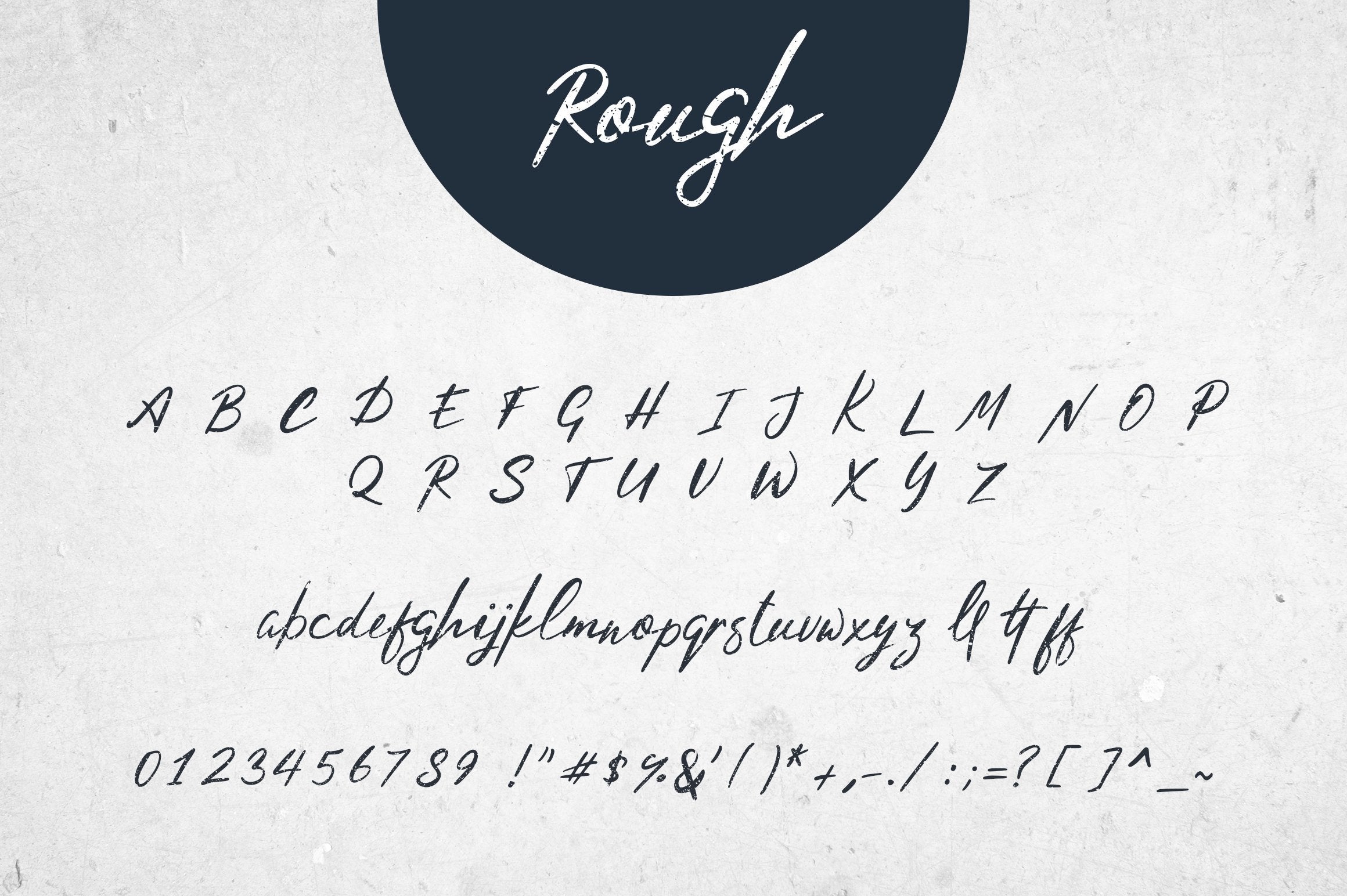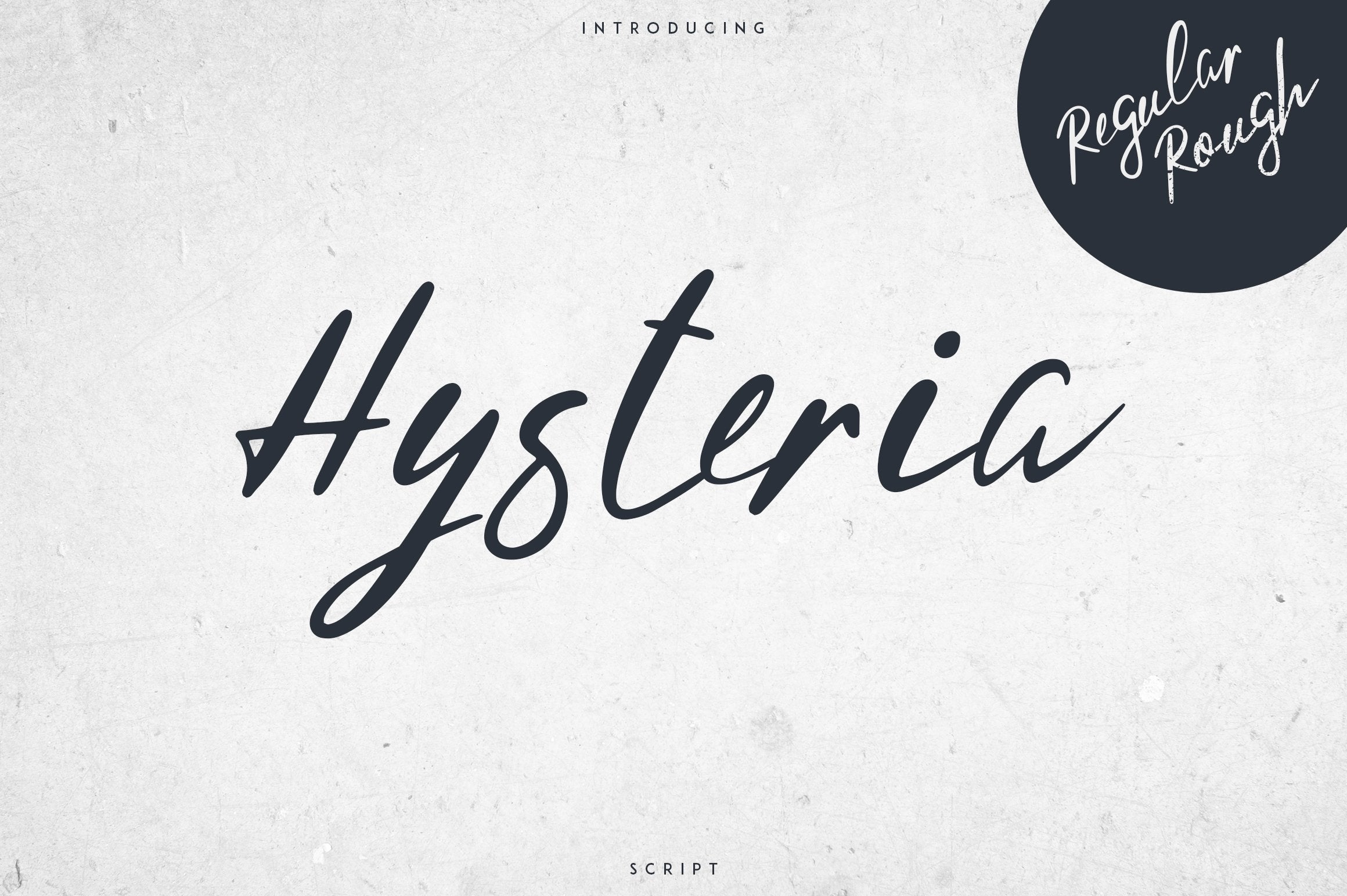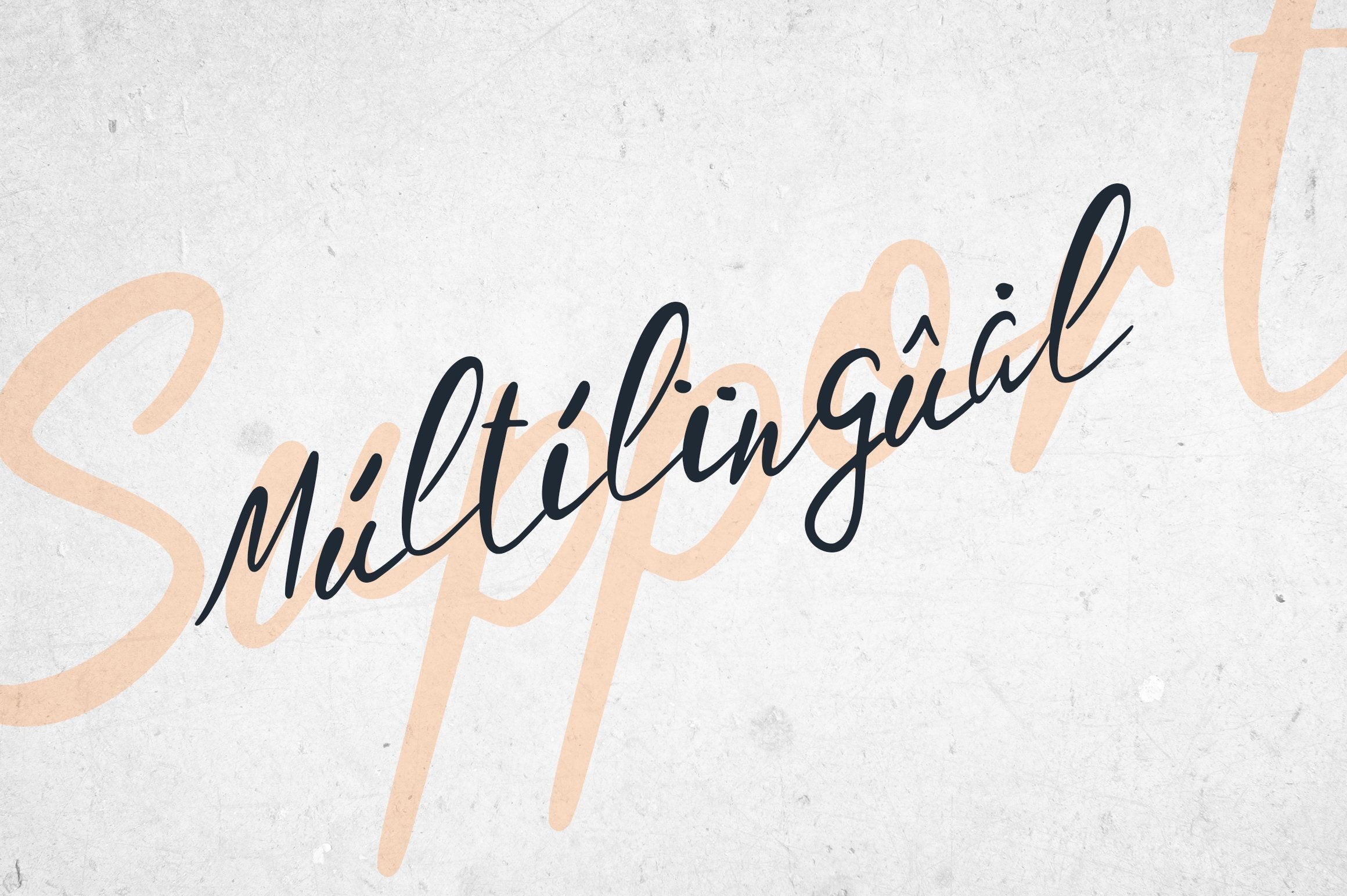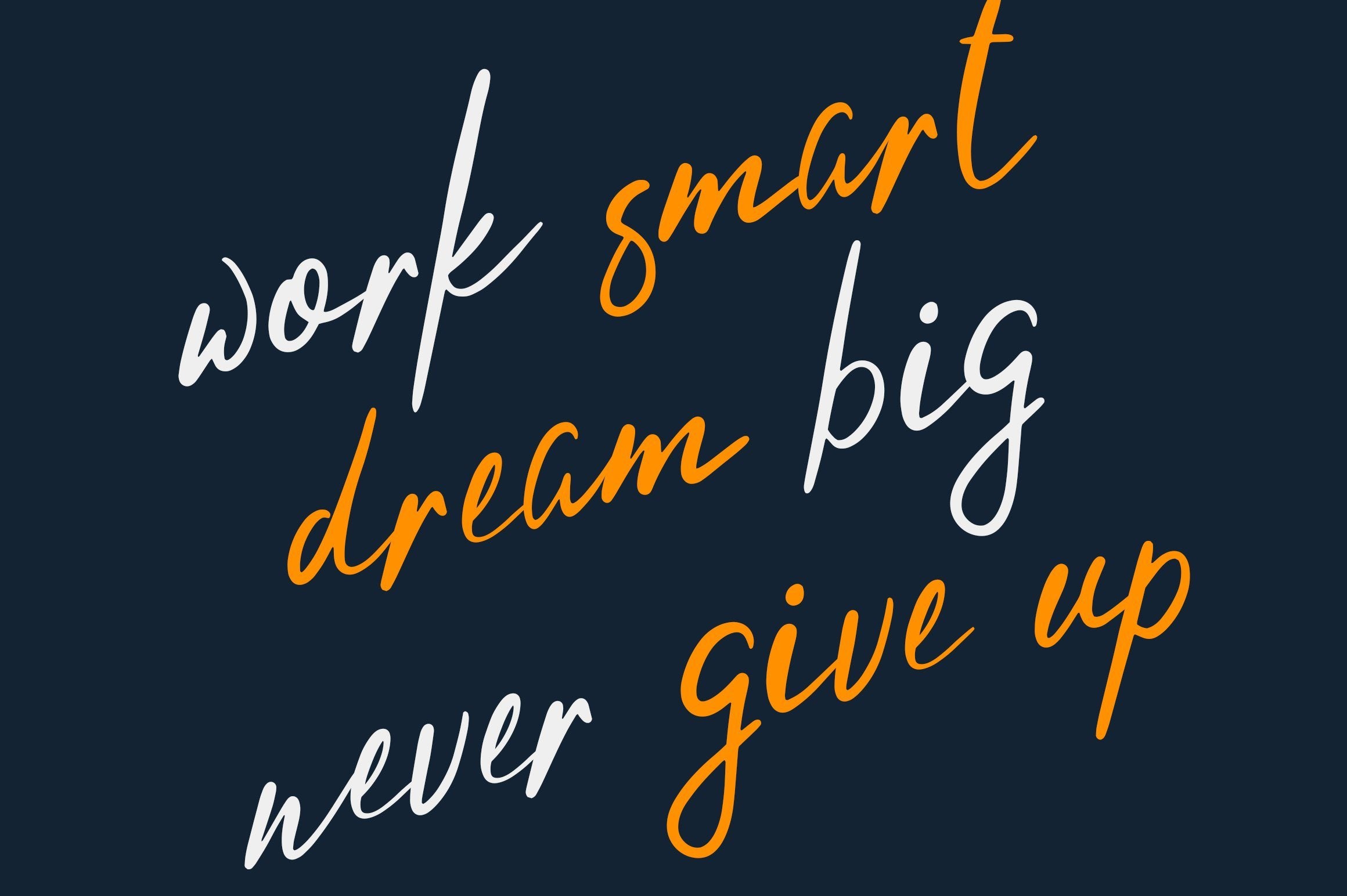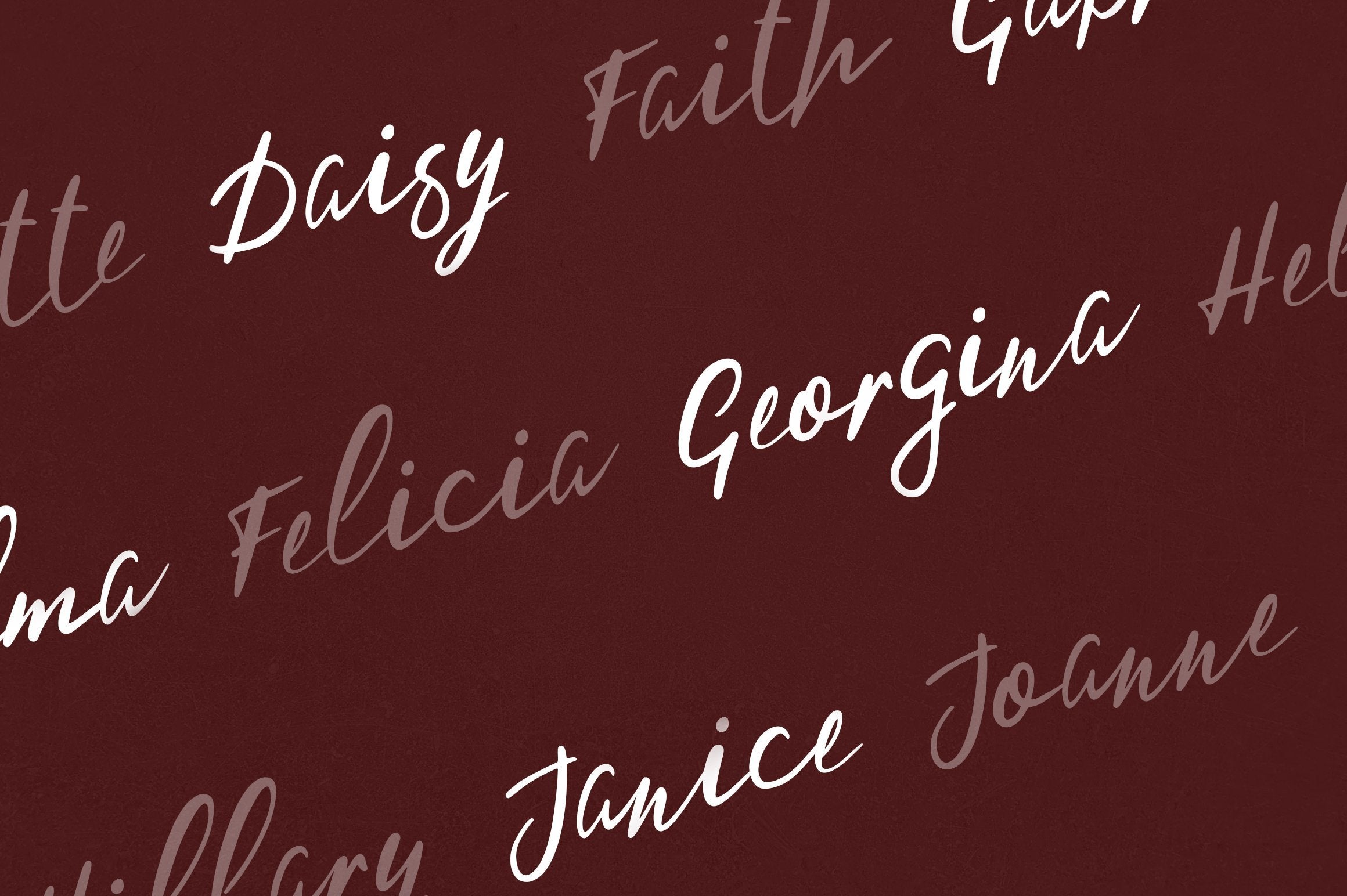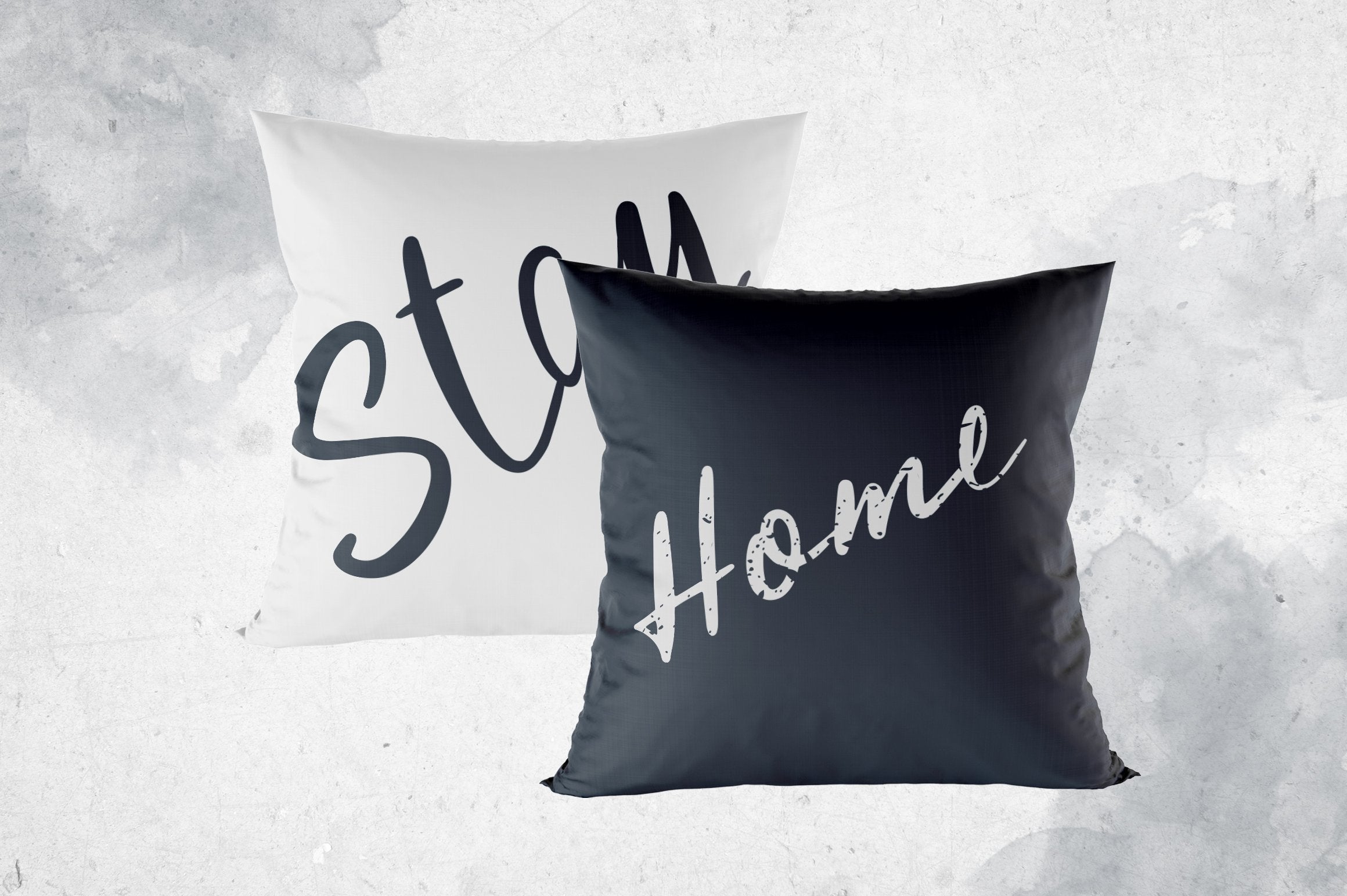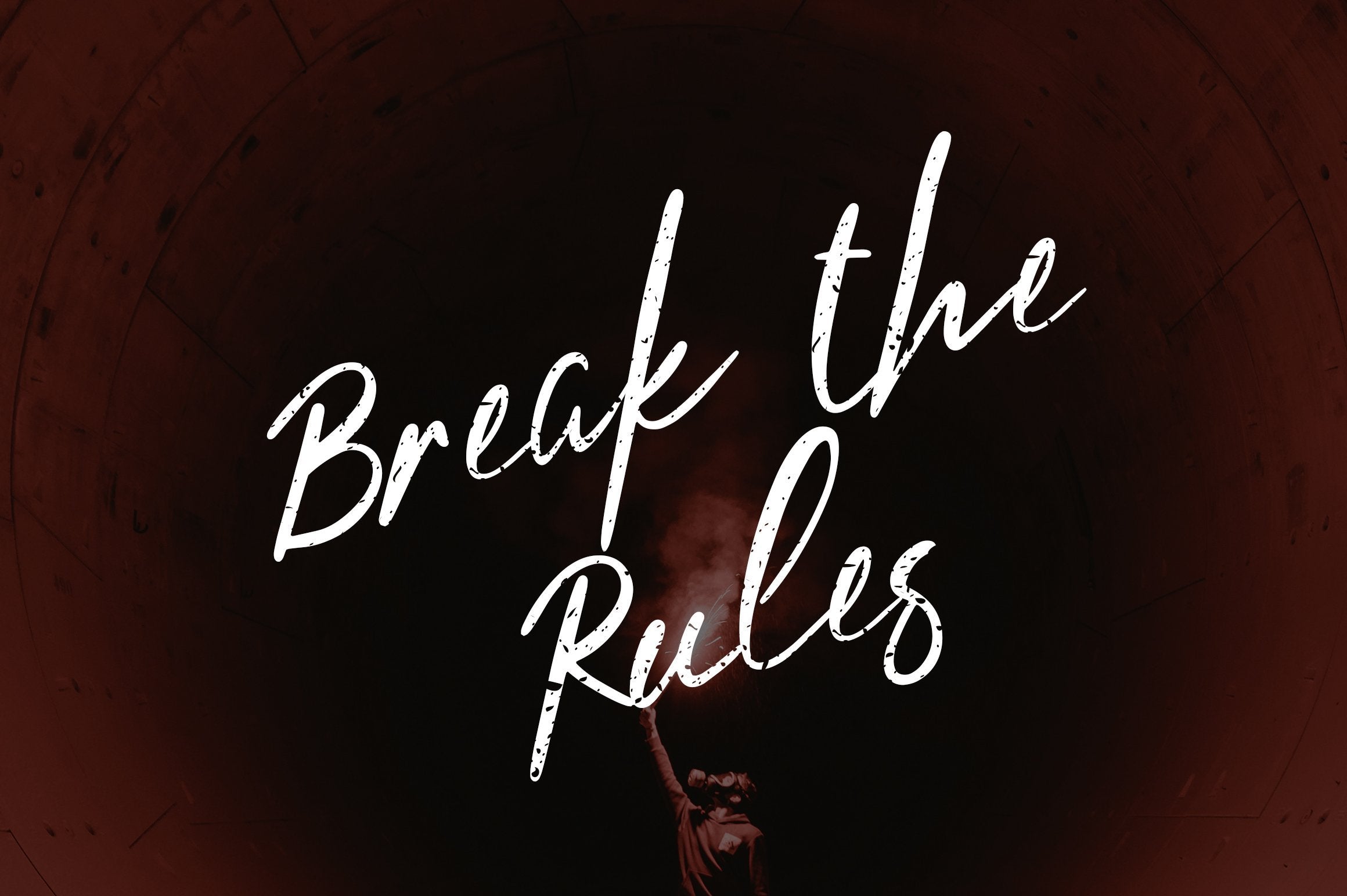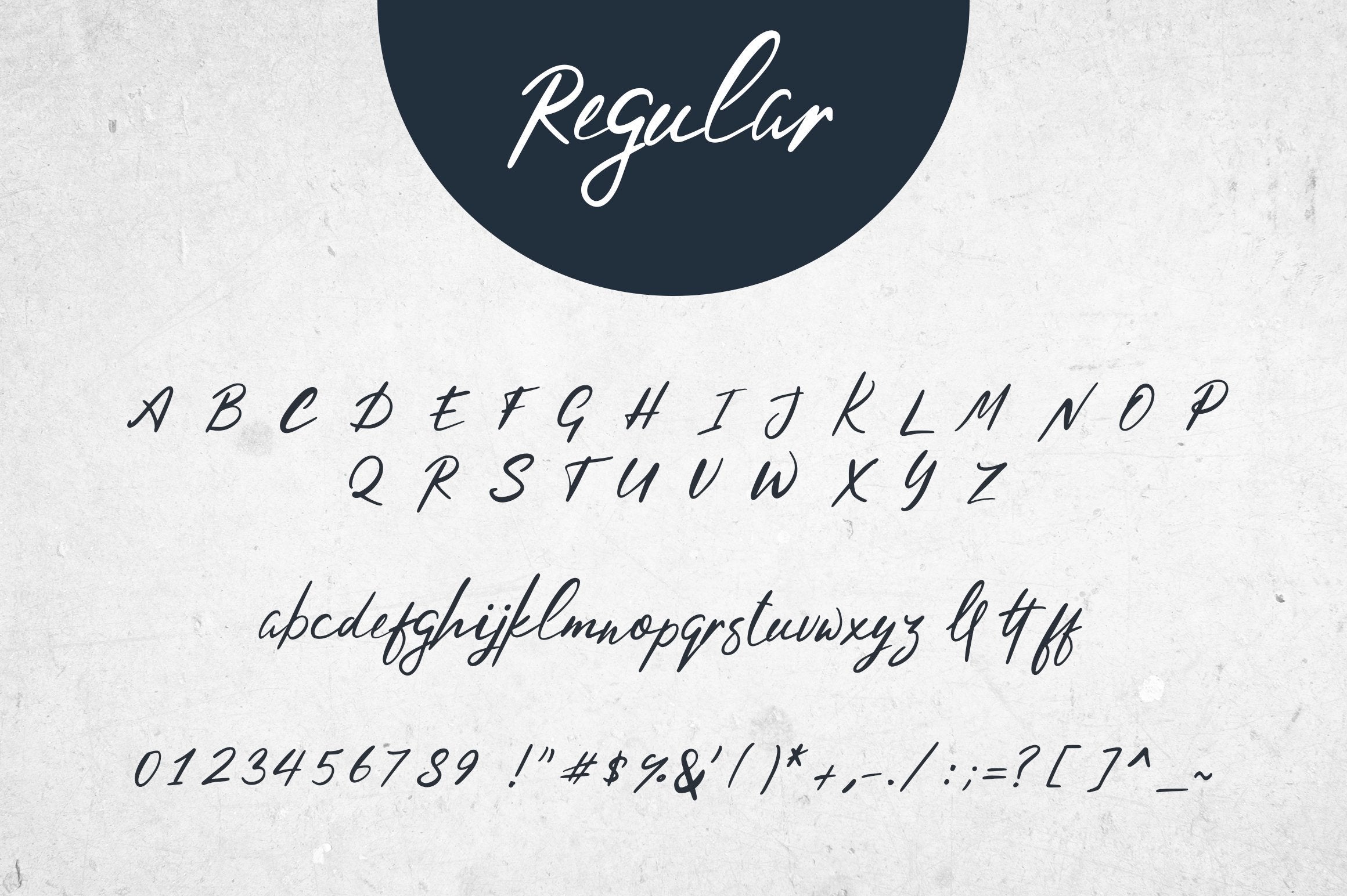
Hysteria Script – 2 styles
About Hysteria Script – 2 styles
Introducing Hysteria Script Hysteria is handwritten, clean typeface with 2 styles and multilingual support. It’s a very versatile font that works great in large and small sizes. Hysteria is perfect for branding projects, home-ware designs, product packaging, magazine headers – or simply as a stylish text overlay to any background image. Uppercase,lowercase,numeral,punctuation & Symbol Multilingual Regular Rough Ligatures Natural feel Feel free to contact me if you have any questions! Mock ups and backgrounds used are not included! Thank you! Enjoy!